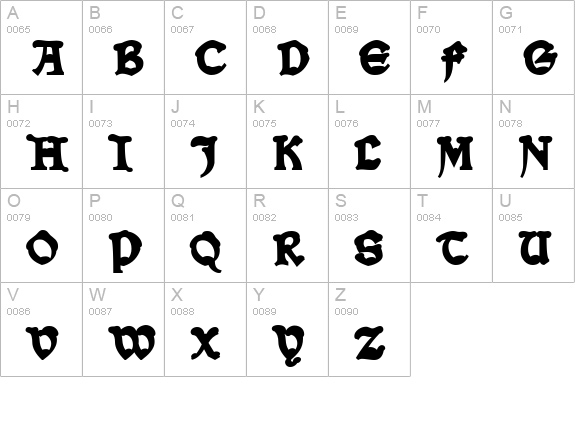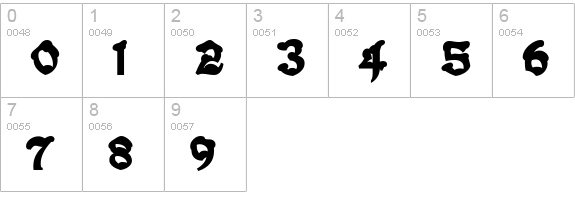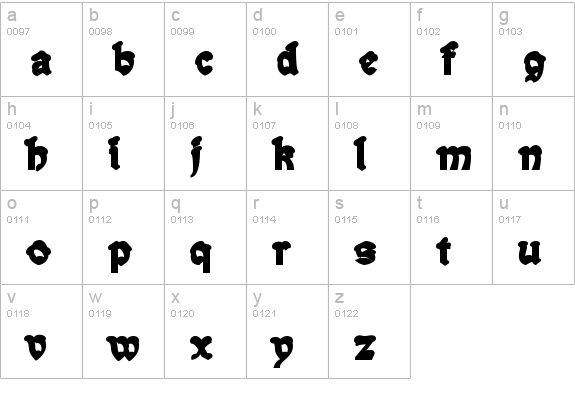
Snowgoose Back font is a unique and elegant typeface that exudes sophistication and charm. With its stylish and modern design, this font is perfect for a wide range of projects, from branding and logos to invitations and social media graphics. The delicate curves and graceful lines of Snowgoose Back font make it stand out and capture attention effortlessly. The best part? Snowgoose Back font is available for free download at FontsMarket.com, allowing you to easily add a touch of class to your designs without breaking the bank. Whether you're a seasoned designer or just starting out, this versatile font is sure to become a go-to choice for all your creative endeavors. Don't miss out on the opportunity to elevate your projects with the timeless elegance of Snowgoose Back font.